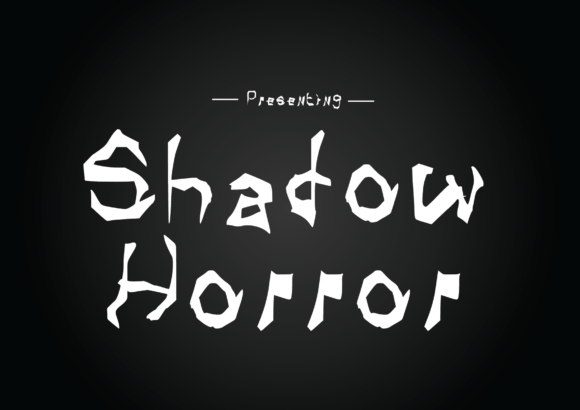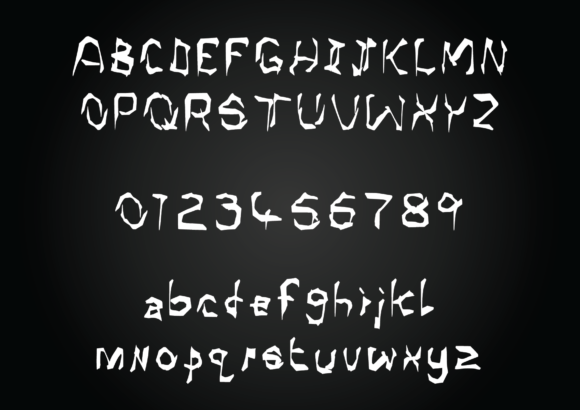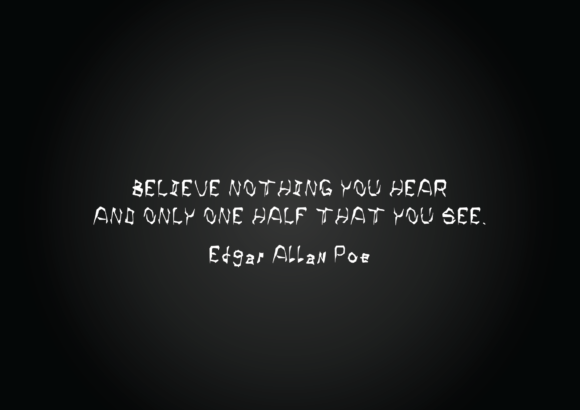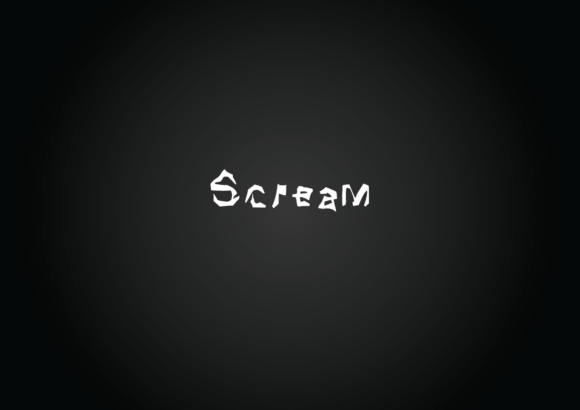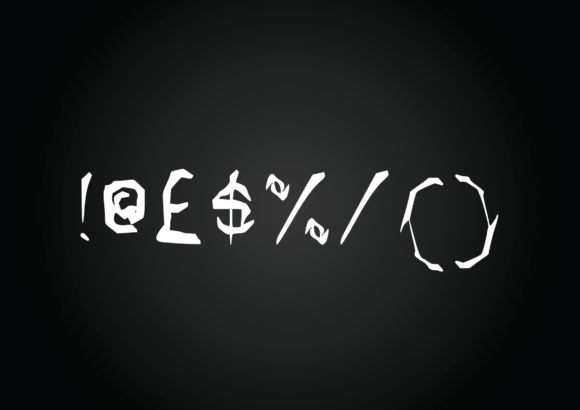
Shadow Horror Font
About Shadow Horror Font
Shadow Horror is a fantastic font that can be used for adding a creepy vibe to any design. Use for a Halloween stationery, headlines and even for body copy!